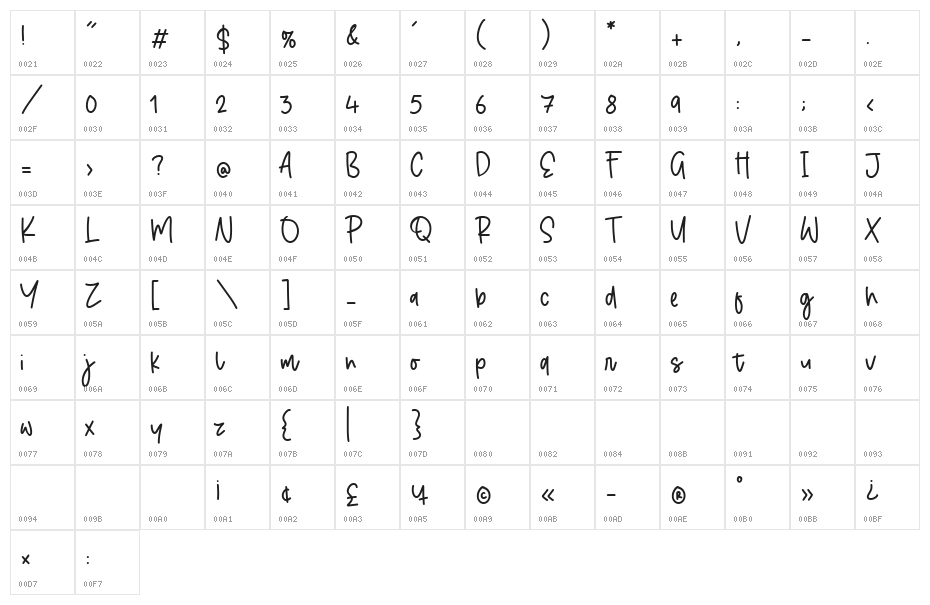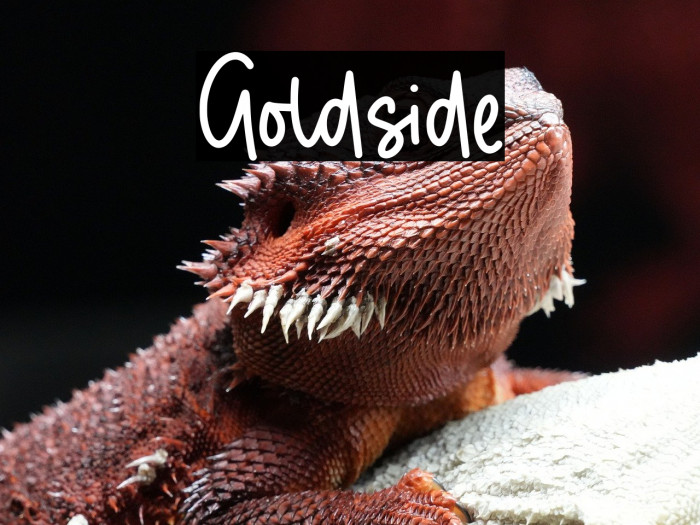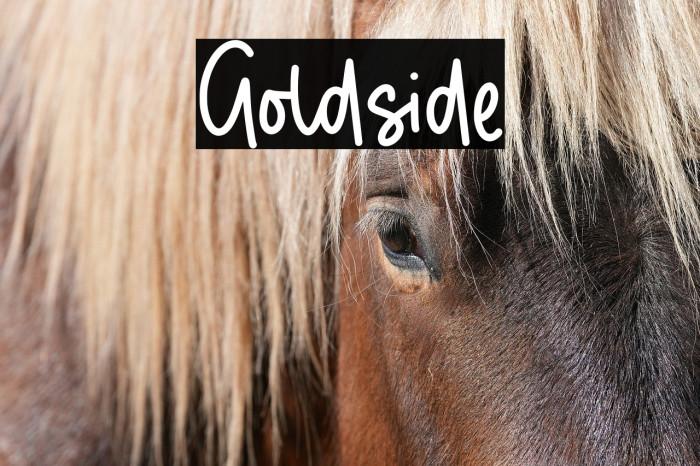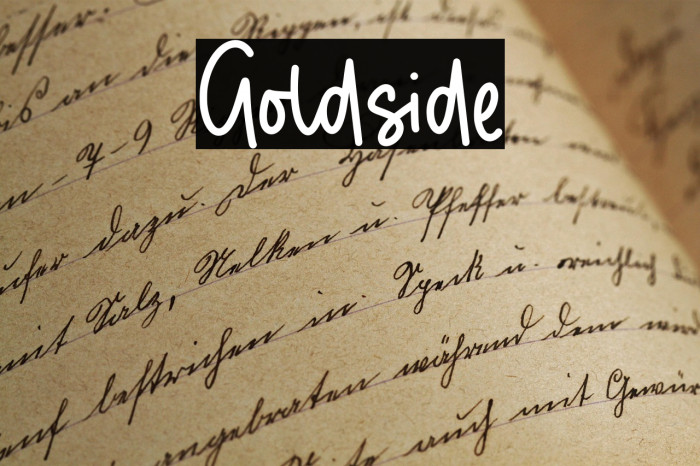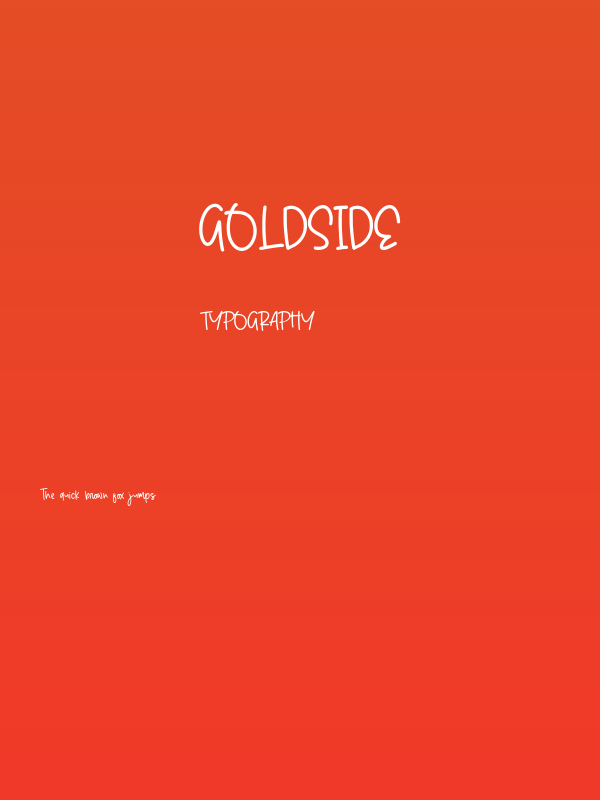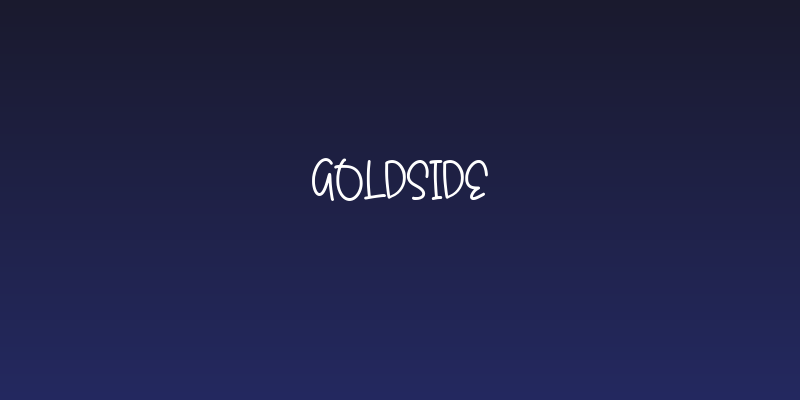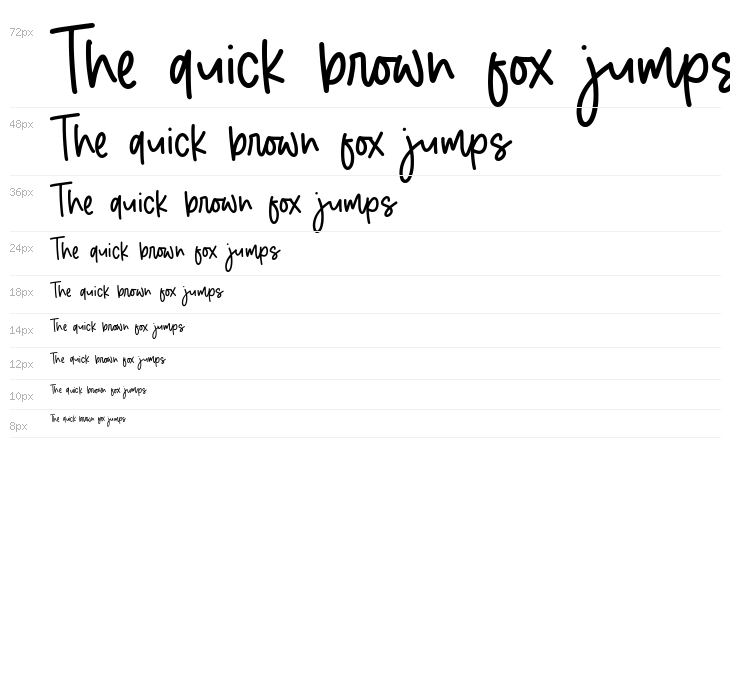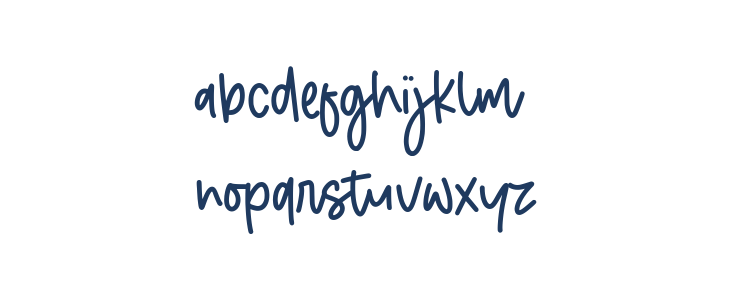
Goldside Font
Goldside Description
This font features a playful and casual handwritten style, characterized by its smooth and flowing letterforms. The uppercase letters are tall and slightly narrow, with a consistent stroke width that gives a uniform appearance. The lowercase letters exhibit a charming, slightly whimsical quality with rounded edges and a natural, organic flow. The numerals maintain the same playful aesthetic, ensuring consistency across all characters. Special characters are well-integrated, maintaining the overall style. This font's informal and friendly appearance makes it ideal for projects that require a personal touch.
| Overall Style | Casual, Playful |
| Use Case | Headlines, Informal text, Personal projects |
| Proposed Projects | Ideal for greeting cards, invitations, personal branding, and social media graphics. |